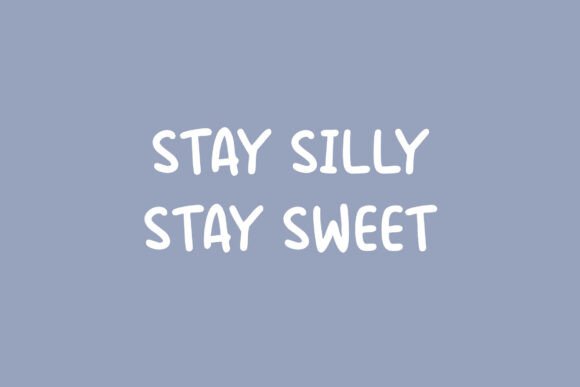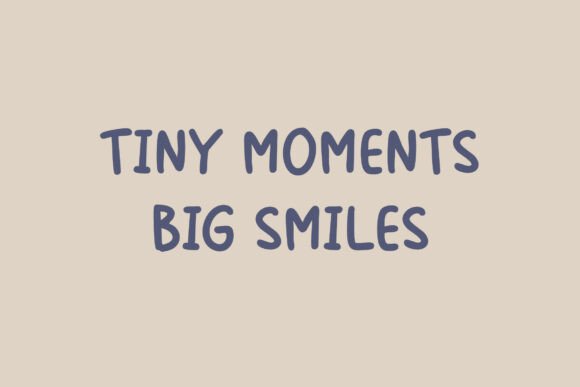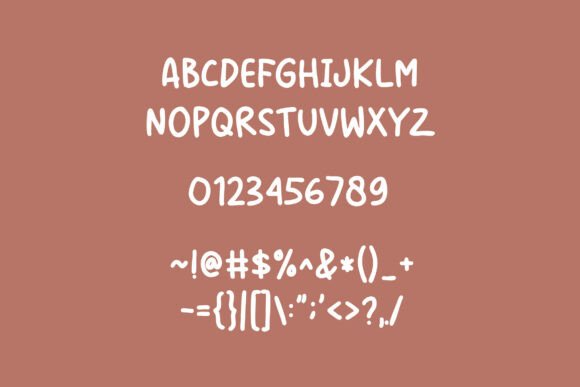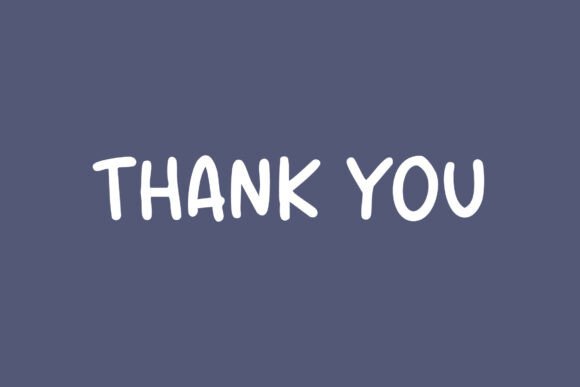
The Perfect Treat for Your Designs: Introducing Brownie Font
Who hasn’t experienced that moment when you’re brainstorming ideas for a new project, and suddenly, a spark of creativity hits? You’re sitting at your desk, surrounded by papers, pens, and a steaming cup of coffee. The ideas start flowing, and you can’t wait to bring your vision to life. For designers, this moment is especially thrilling – and that’s where the Brownie Font comes in. This playful, handwritten font is the perfect addition to any project, adding a touch of whimsy and personality to your work.
With its soft curves and cheerful style, the Brownie Font is a valuable asset for designers looking to create lighthearted and engaging content. Whether you’re working on branding, quotes, kids’ projects, or social media content, this font is sure to bring a smile to your audience’s faces. By incorporating the Brownie Font into your designs, you’ll instantly add a charm that sets your work apart from the rest.
- Font Family: Brownie Font is a sans-serif font family.
- Character Set: The font family includes a wide range of characters, including uppercase and lowercase letters, numbers, and punctuation marks.
- Unique Characteristics: The Brownie Font is known for its clean, modern design and friendly feel, making it suitable for various applications, including logos, signage, and body text.
- Font Weight and Style: The font family includes multiple weights and styles, including regular, bold, italic, and bold italic, allowing for flexibility in design and layout.
Overall, I think the Brownie Font has some great qualities, but it also has some areas for improvement.
- The Brownie Font has a unique and playful feel that can be perfect for baking-themed designs or any project that needs a whimsical touch.
- The font’s rounded edges and curves give it a soft and friendly appearance that’s easy to read.
- The font comes in a variety of weights and styles, making it easy to customize to fit your design needs.
- The font may not be suitable for formal or professional designs, as it can come across as too casual or childish.
- The font’s rounded edges can make it difficult to read at smaller font sizes or in certain contexts.
Overall, the Brownie Font is a fun and playful addition to any design project, but it may not be the best choice for every situation. With its unique feel and customization options, it’s perfect for baking-themed designs, children’s books, or any project that needs a touch of whimsy.
The Brownie Font is a great choice for:
- Cake and dessert labels
- Food blog headers
- Wedding invitations
For the best results, use the Brownie Font in bold or italic styles to add emphasis and visual interest to your design.
Brownie Font is a popular, modern sans-serif font known for its clean lines and versatility. However, designers may be looking for alternatives to add some variety to their designs. Here are a few options to consider: